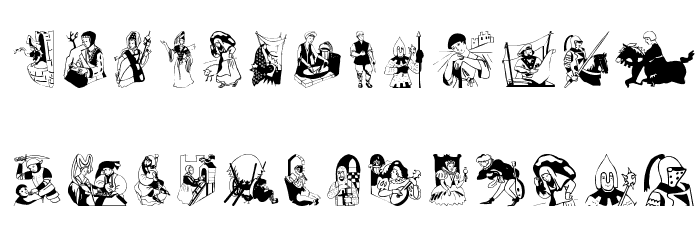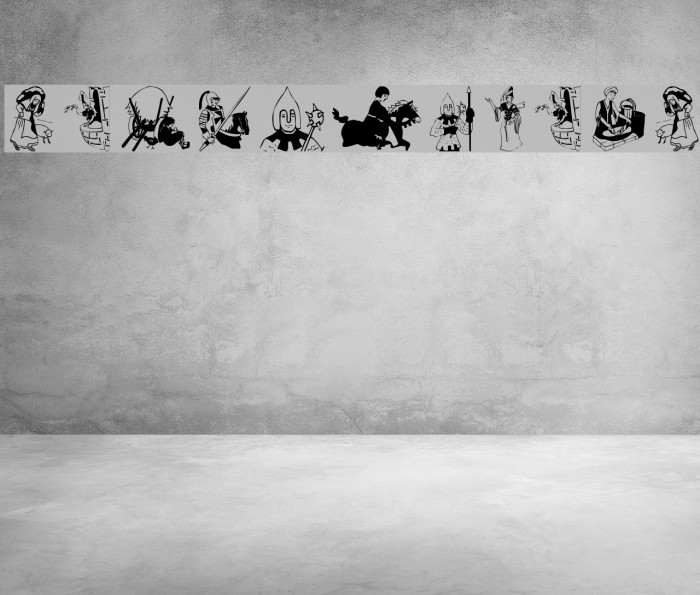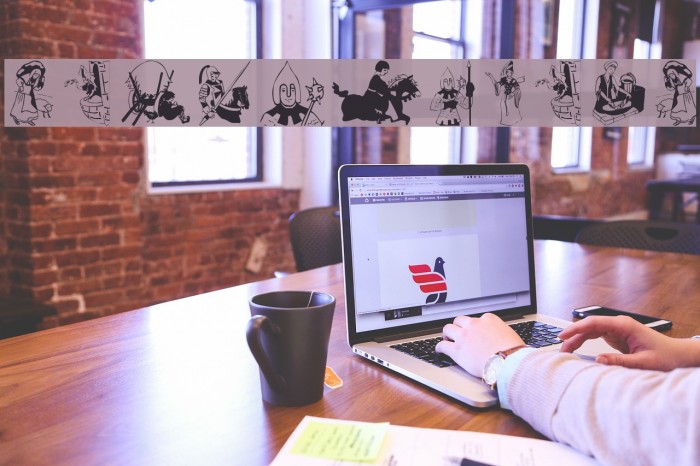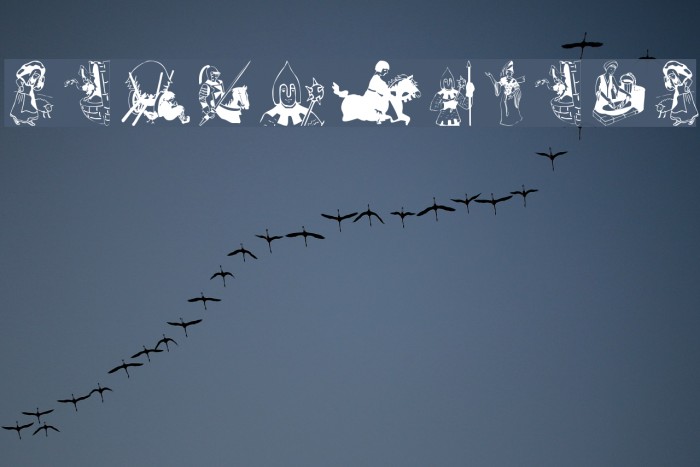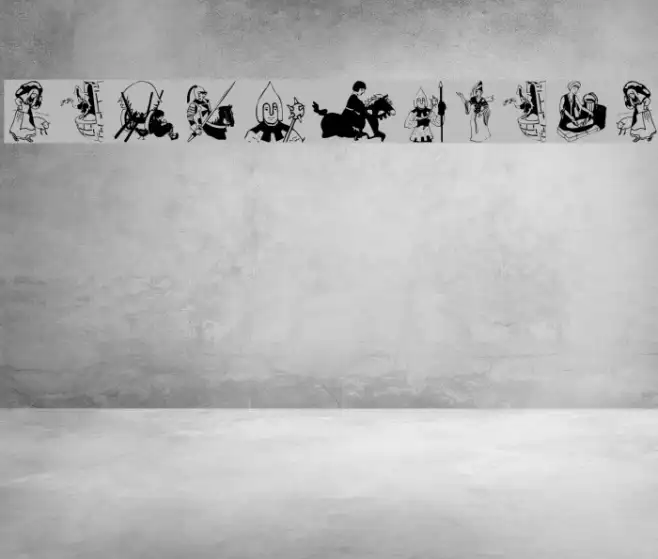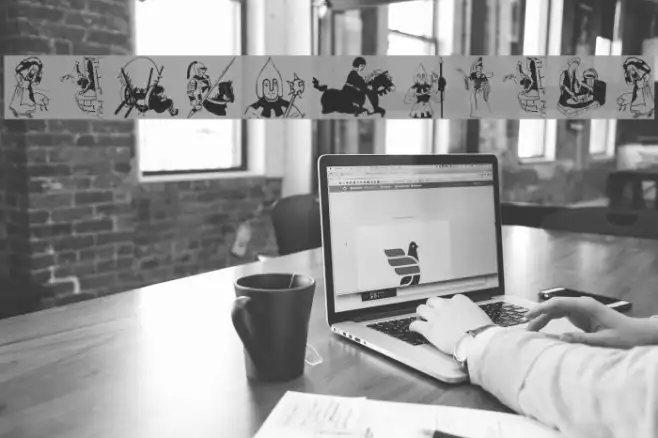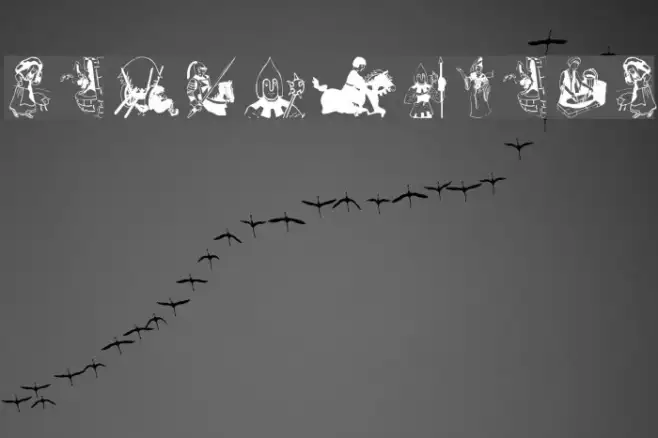
EarlyMidage Font
This unique decorative font features intricate illustrations within each character, depicting scenes reminiscent of medieval times. Each letter is adorned with detailed artwork, showcasing figures in historical attire, engaging in various activities typical of the era. The font is highly stylized, with each character serving as a miniature piece of art, making it ideal for projects that require a historical or fantasy theme. The complexity of the illustrations may affect legibility at smaller sizes, but they offer a rich visual experience when used appropriately.
A decorative font with medieval-themed illustrations within each character.
- Proposed Projects: Ideal for themed posters, book covers, or invitations that require a historical or fantasy aesthetic.
- Use Case: Logos, Headlines, Themed designs